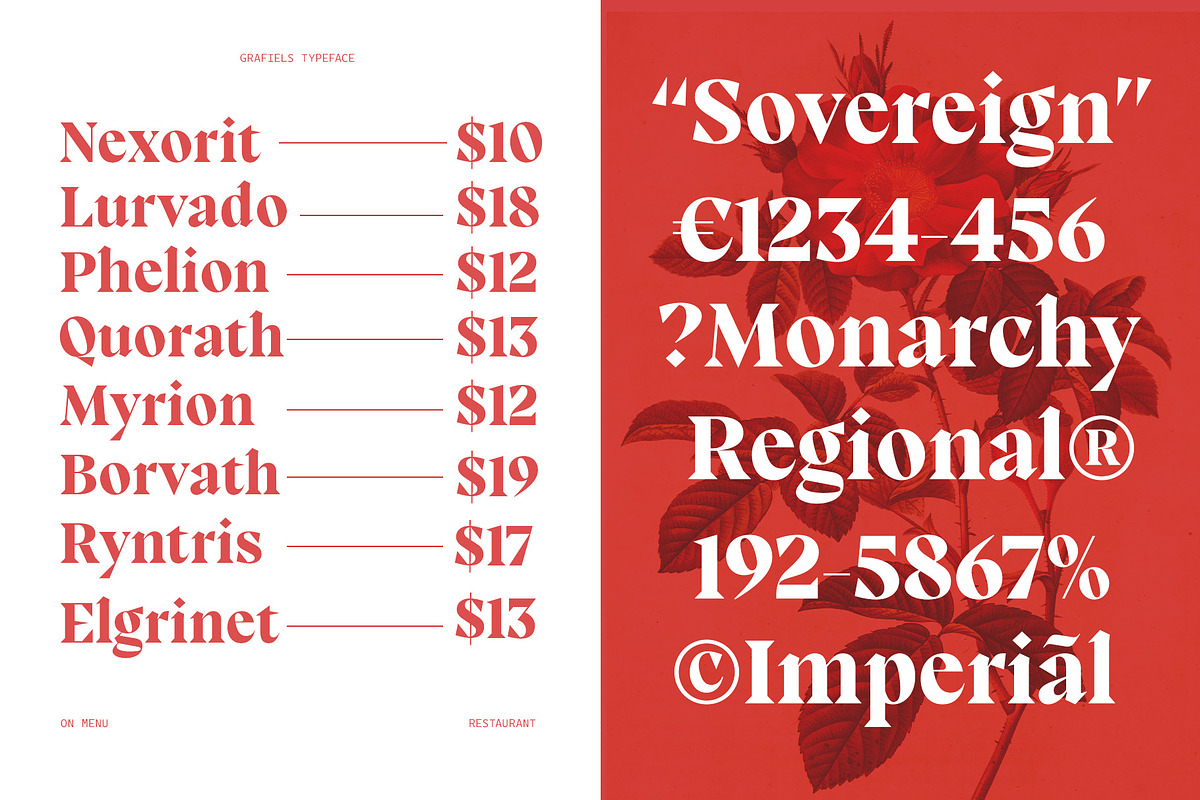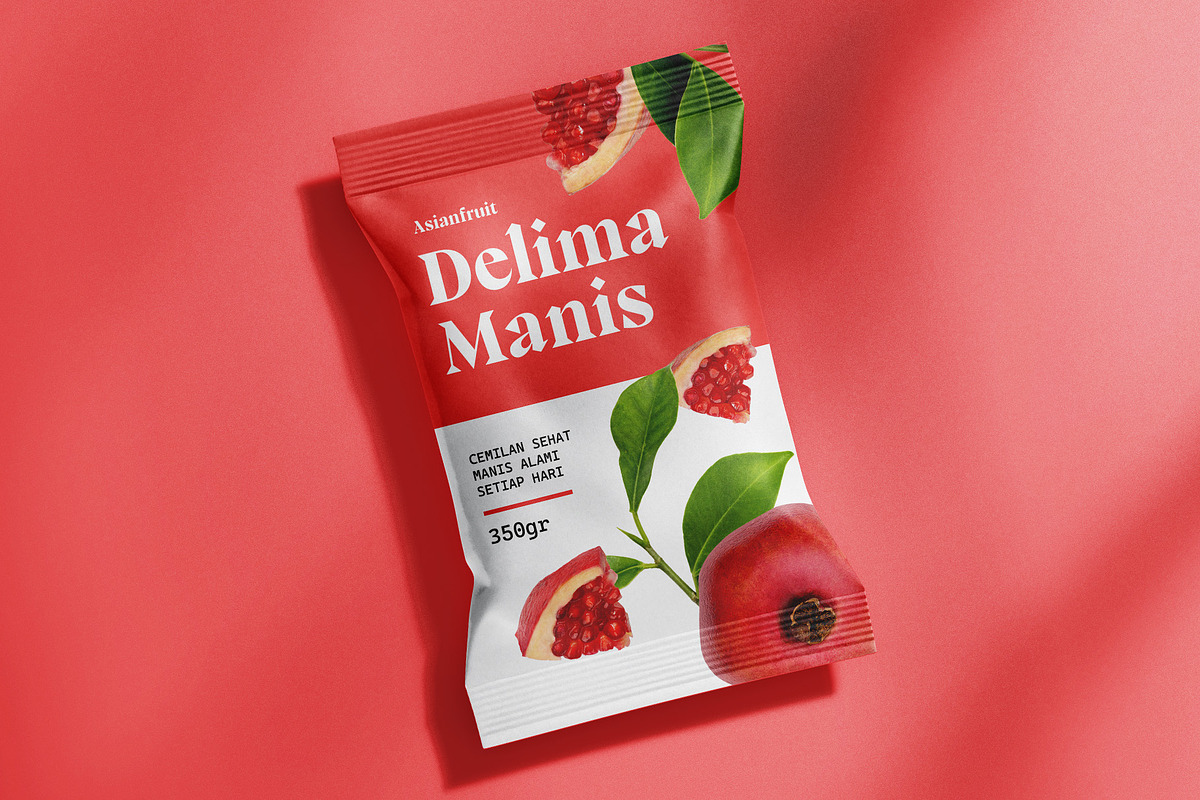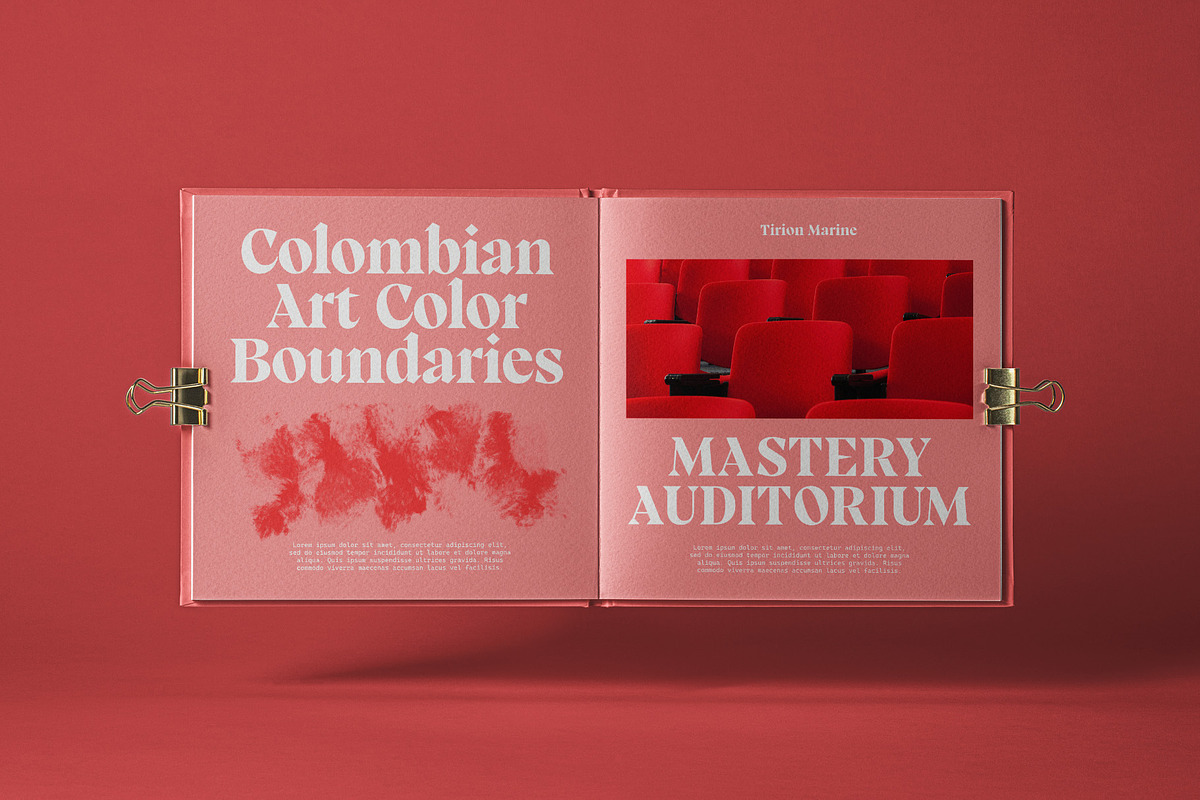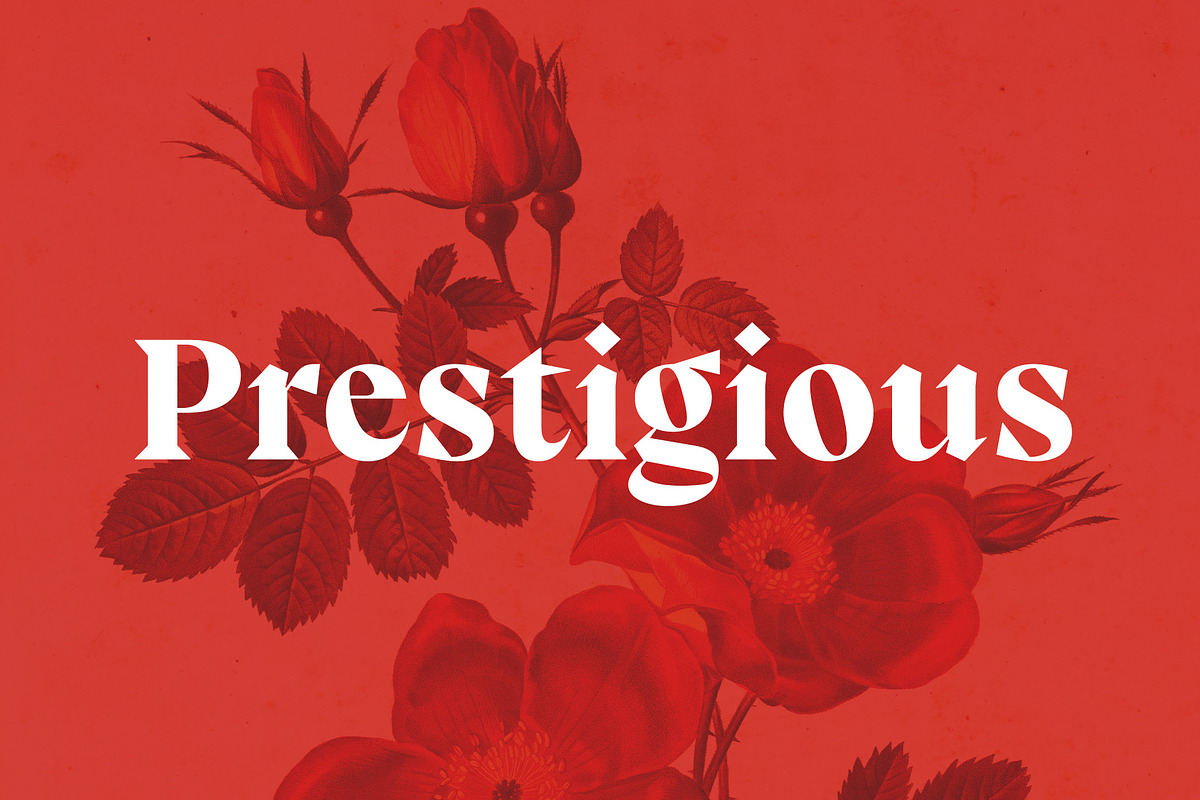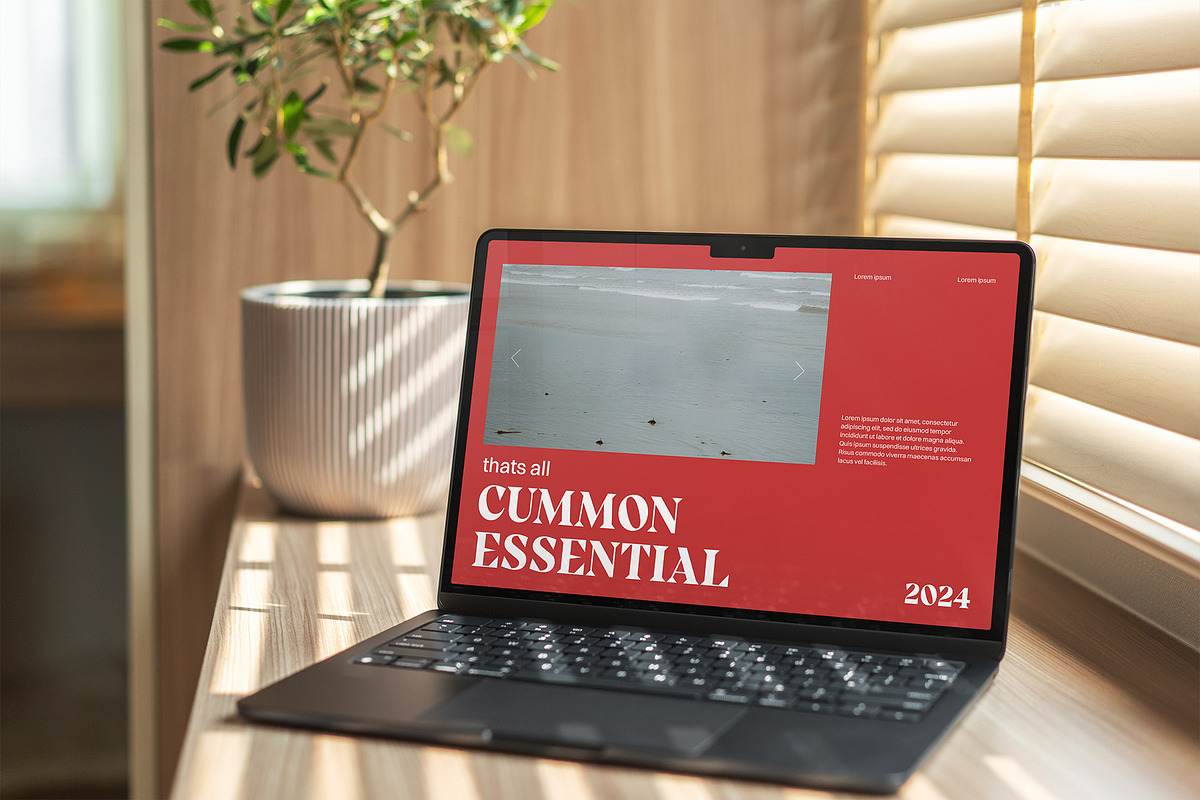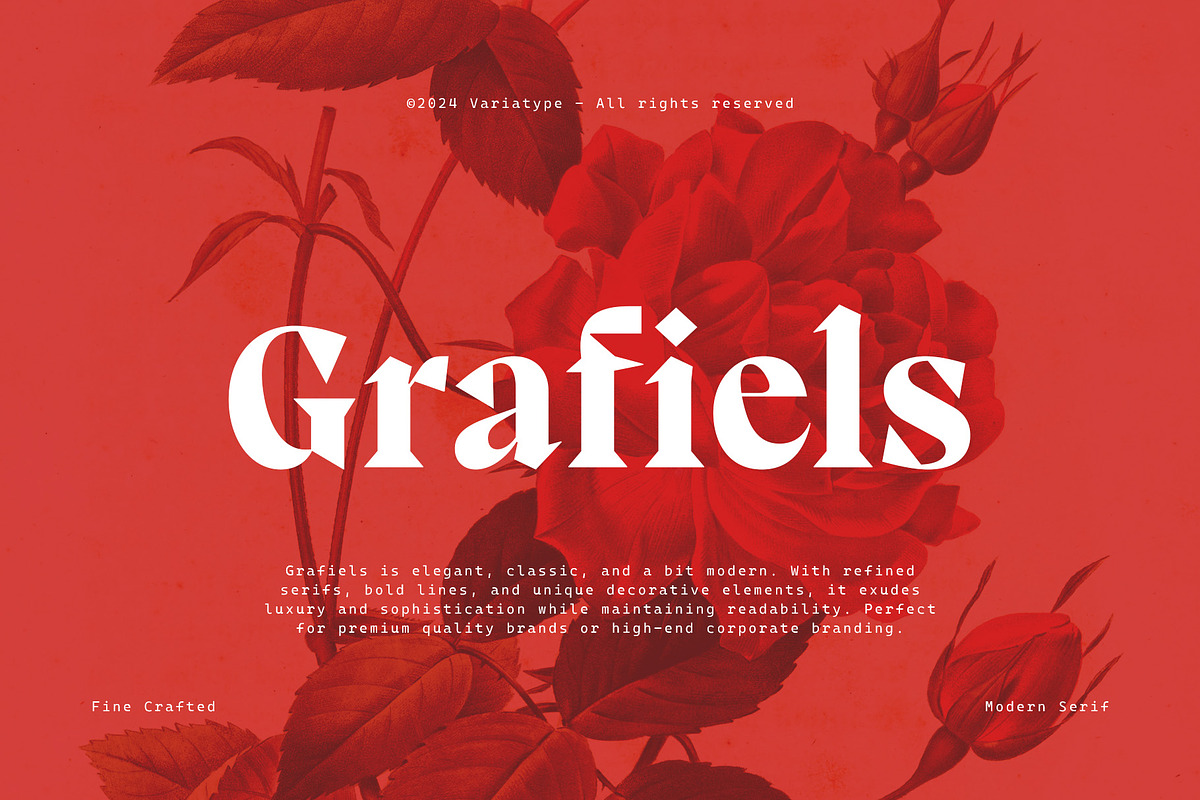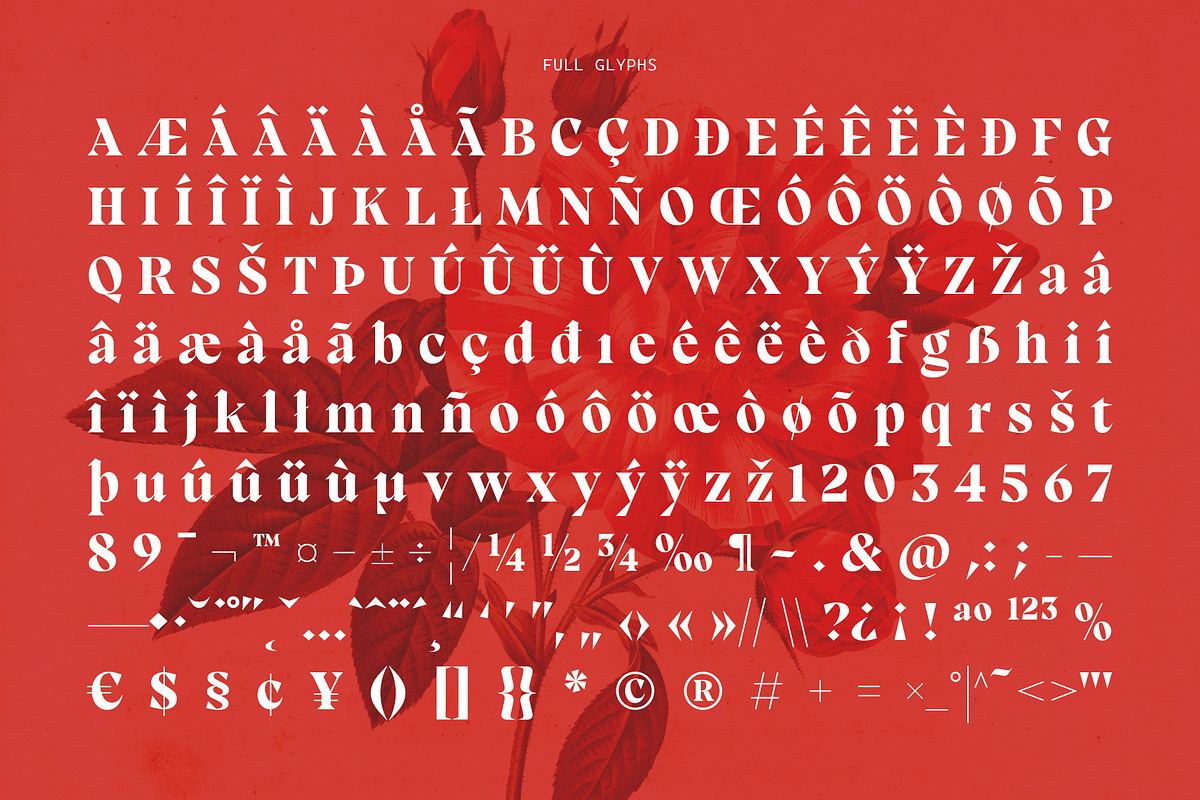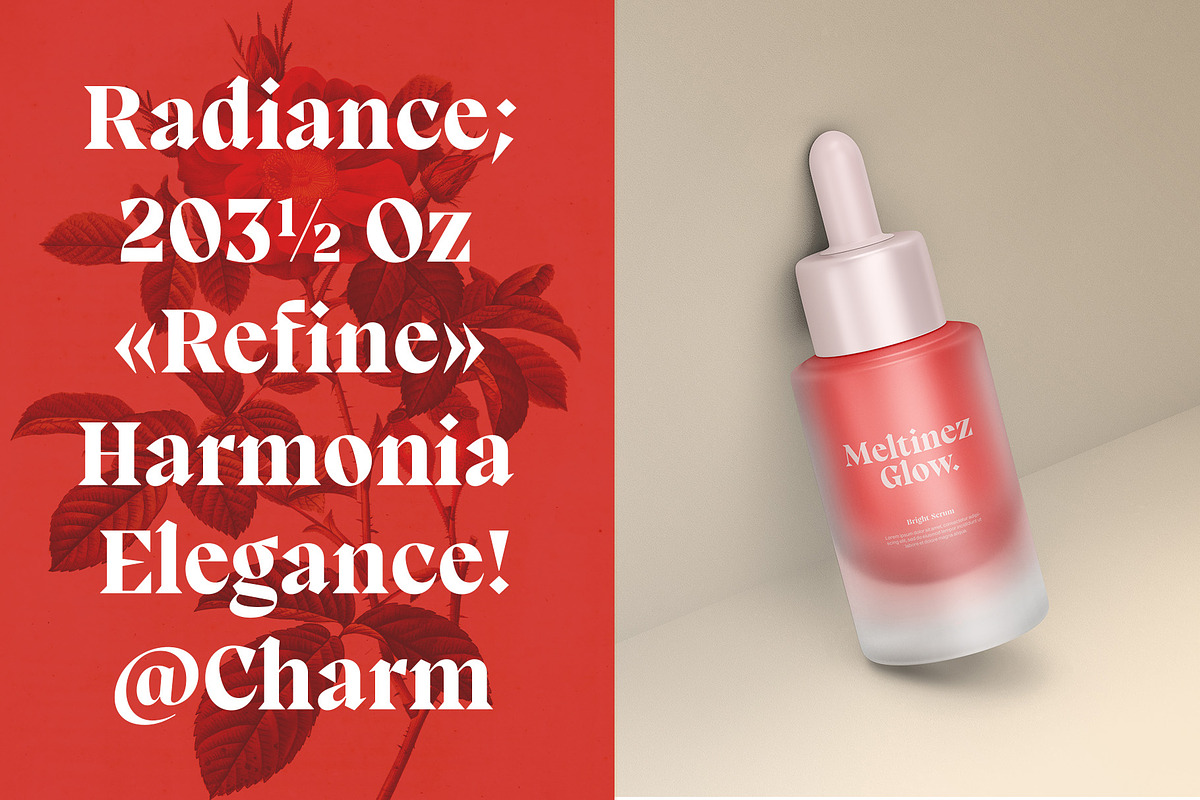
Grafiels - Elegant Classic Serif
Grafiels is elegant, classic, and a bit modern. With refined serifs, bold lines, and unique decorative elements, it exudes luxury and sophistication while maintaining readability. Perfect for premium quality brands or high-end corporate branding.
FONT FEATURES
Additional Accents
68 Languages
Kerning